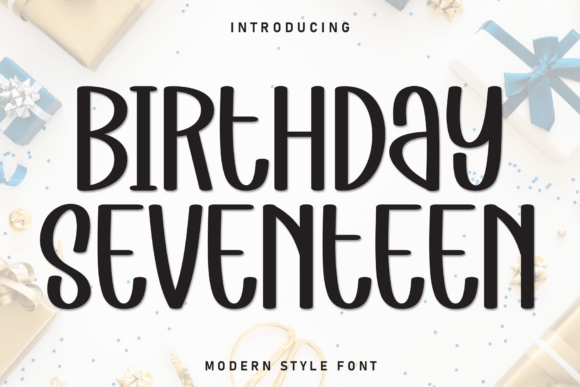
The Perfect Blend of Whimsy and Heartfelt Design
Who among us hasn’t scribbled a heartfelt message to a loved one, the words spilling out in a joyful jumble of handwriting that captures the essence of our emotions? It’s in these moments that we realize the power of handwritten notes – a personal touch that speaks volumes about our intentions. As designers, we’re constantly seeking ways to inject this same warmth and personality into our projects.
Enter the Birthday Seventeen Font – a charming handwritten display font that embodies the very spirit of a heartfelt handwritten note. Whether you’re crafting wedding invitations, designing greeting cards, or simply looking to add a playful twist to your designs, this font is the perfect companion. Its value lies in its ability to evoke a sense of approachability and warmth, making it an invaluable asset for designers seeking to create memorable and personable designs.
Birthday Seventeen Font Key Features
- Unique Characteristics: The Birthday Seventeen Font features a unique, hand-drawn design with a playful and celebratory feel, making it ideal for birthday invitations, party decorations, and other festive designs.
- Character Set: The font includes a comprehensive character set, including uppercase and lowercase letters, numbers, punctuation marks, and special characters.
Birthday Seventeen Font Review
I recently had the chance to work with the Birthday Seventeen font, and I must say it’s a unique and interesting choice. ✨ Here are some of the things that stood out to me:
- Handwritten feel: The font has a lovely, handwritten quality that makes it perfect for creative projects, especially those involving quotes or personal messages.
- Customization options: The font comes with a range of customization options, allowing you to adjust the size, color, and style to suit your needs.
- Casual vibe: The font has a relaxed, casual feel that’s perfect for informal designs, such as social media graphics or blog posts.
However, there are a few limitations to keep in mind: ⚠️
- Readability: While the font is beautiful, it can be a bit tricky to read, especially at smaller sizes. This may be a concern for designs where legibility is crucial.
- Lack of consistency: The font’s handwritten quality can sometimes make it look a bit inconsistent, which may be a problem for designs that require a high level of precision.
Overall, I think the Birthday Seventeen font is a great choice for creative projects, but it may not be the best fit for more formal designs or those that require high levels of precision.
The Birthday Seventeen Font is ideal for:
- Celebrating birthdays and anniversaries.
- Creating custom party invitations and decorations.
- Designing personalized gifts and cards.
For the best results, use the Birthday Seventeen Font in bold and bright colors to make a statement.
Compared to Birthday Seventeen Font, Carolyna Pro has a more modern and edgy look, making it suitable for trendy and innovative designs. While Birthday Seventeen Font is more classic and timeless, Carolyna Pro is more bold and attention-grabbing.